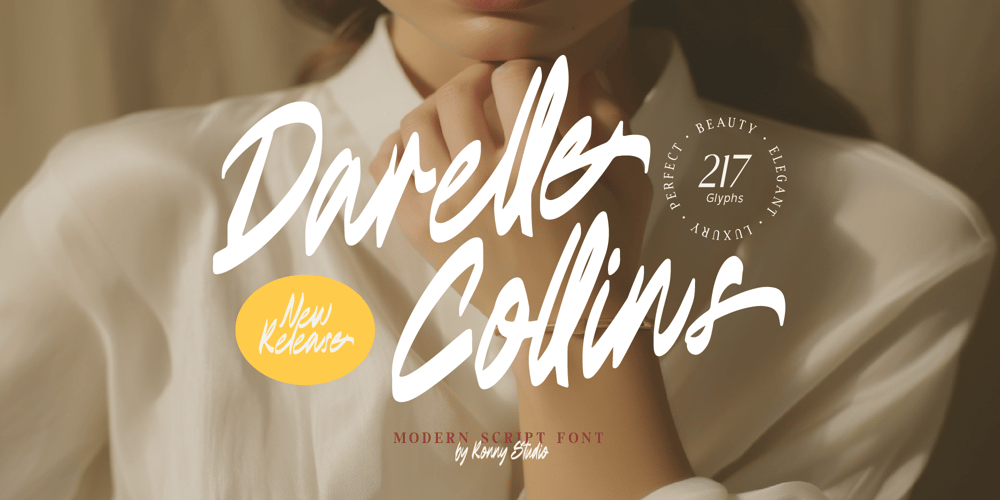
Darelle Collins Font Family was designed by Rony Rizki Jaya and published by Ronny Studio. Darelle Collins contains 2 styles and family package options. Darelle Collins Font is created with a natural modern script with a fresh modern script providing a stylish script guaranteed to add eye-catching appeal to your logo designs, brand imagery, quotes, product packaging, merchandise & social media posts